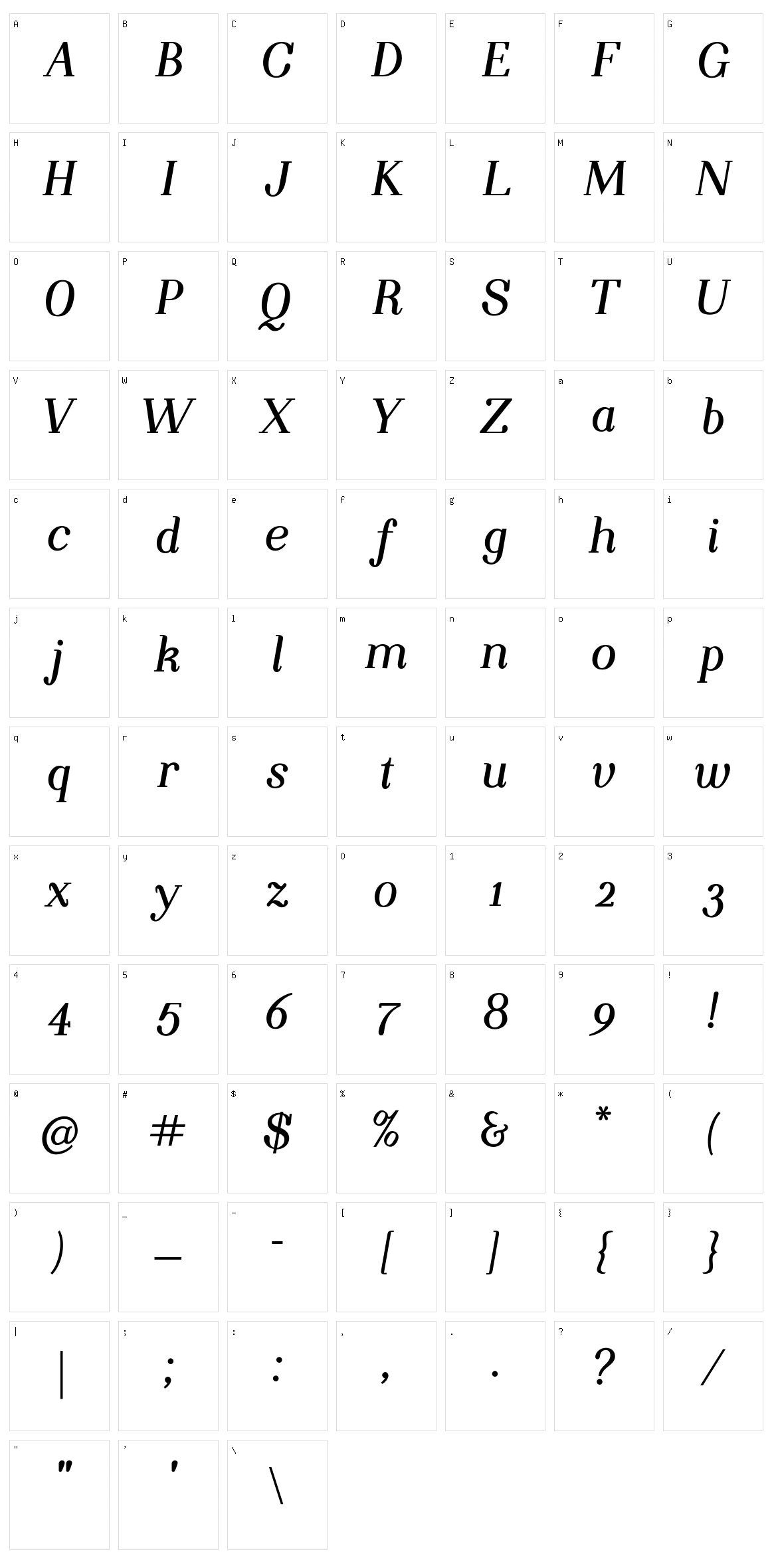
The complete fonts contain over 550 glyphs each, with features such as:
-> Small caps,
-> Several ligatures,
-> Subscript and superscript numbers and letters,
-> Lining and old style numbers (proportional and tabular),
-> Fractions.